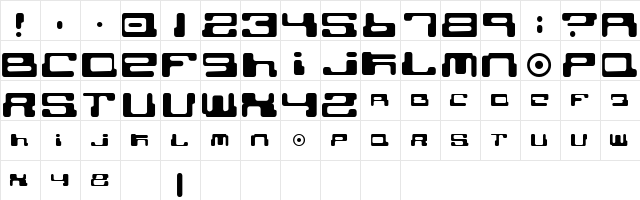
Cybertown Subterranean Normal
Design Context for Cybertown Subterranean Typeface
Cybertown Subterranean channels digital-age aesthetics through its sharp, structured letterforms — ideal for brands that want to signal innovation.
Pro Tip: Use Cybertown Subterranean in combination with a neutral sans for body text. Let it define the brand voice in headlines while keeping reading comfortable elsewhere.